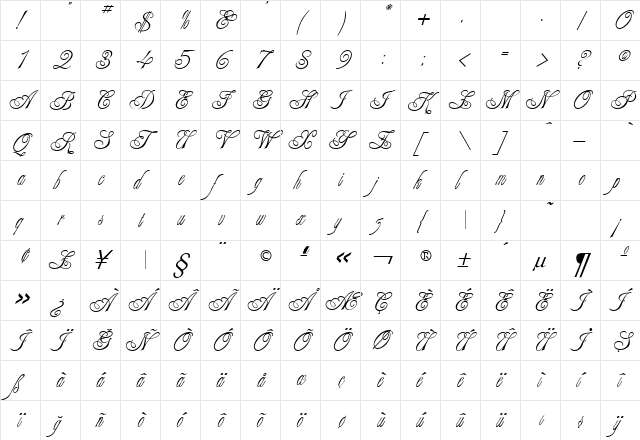
TR Alexei Copperplate Regular
Design Context for TR Alexei Copperplate Typeface
TR Alexei Copperplate is a composed and adaptable typeface that performs quietly and consistently across a wide range of design contexts.